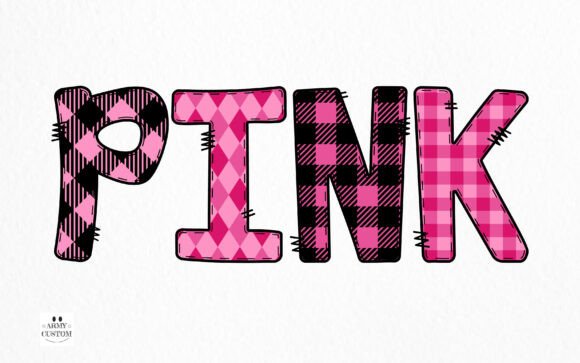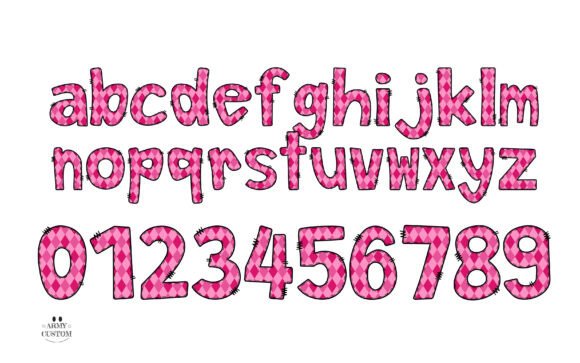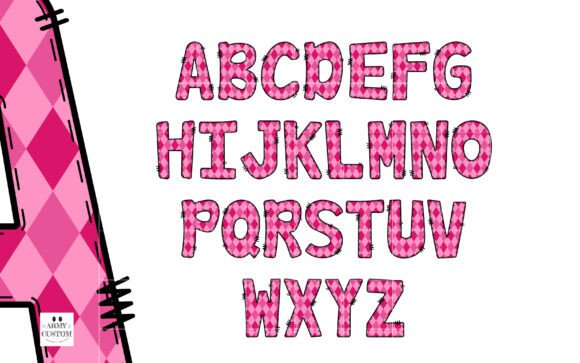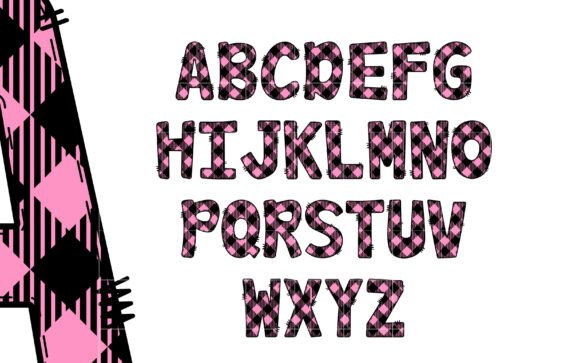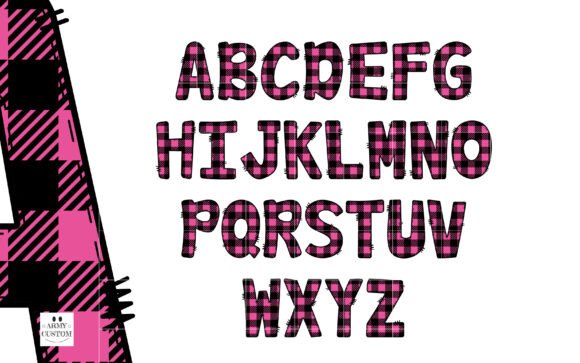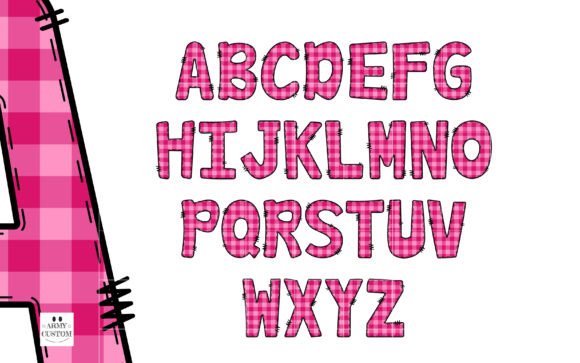
Introduction to Plaid Pink Font Font
Fonts play a crucial role in design, and the Plaid Pink Font font is a typeface that brings both character and versatility to any project. Whether you’re working on a branding project, a website, or a print design, the Plaid Pink Font font offers a unique style that can elevate your work.
Unleash playful, handcrafted charm with Plaid Pink Color Font, a decorative color typeface that features bold, rounded lettering filled with vibrant, contrasting pink and black plaid patterns.
This color font is designed to deliver a high-impact, layered, and distinctly DIY/craft aesthetic, complete with subtle, decorative stitch marks along the outlines that enhance its unique, textile-inspired look The chunky, friendly shapes make every letter pop off the page.
The Plaid Pink Font font is more than just a typeface – it’s a design tool that helps you communicate your message with style and clarity. Its unique character set and versatile design make it suitable for a wide range of applications, from elegant invitations to bold headlines.
With its carefully crafted letterforms and balanced proportions, the Plaid Pink Font font ensures readability and visual appeal across all mediums.
What makes Plaid Pink Font font special?
The Plaid Pink Font font stands out with its unique design, exceptional readability, and versatility across various design applications.